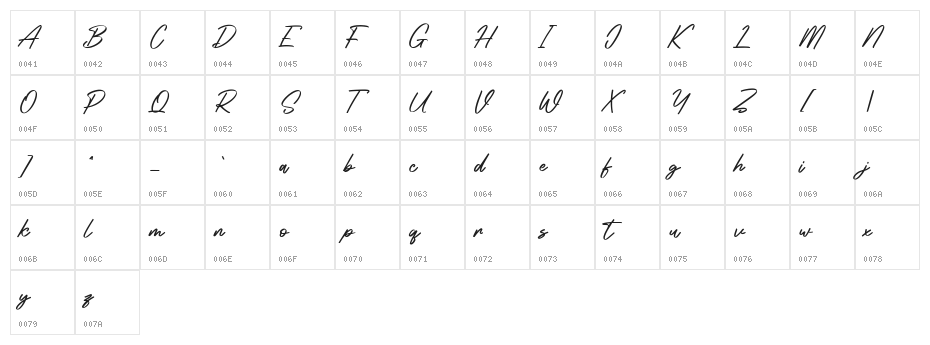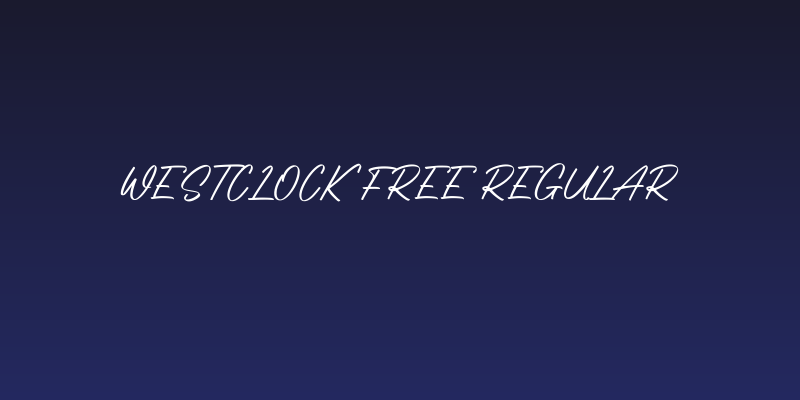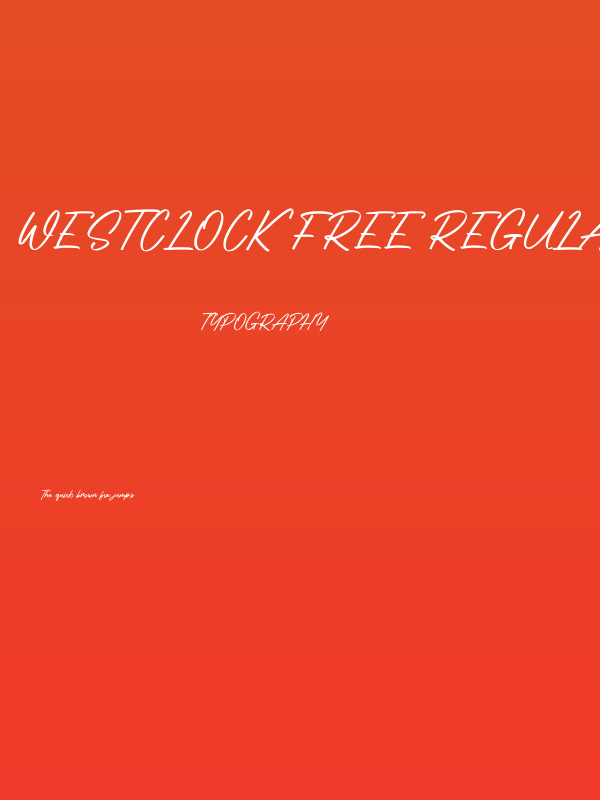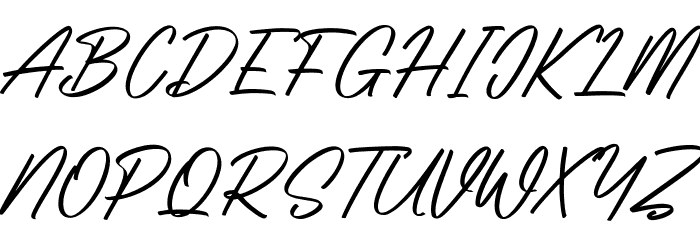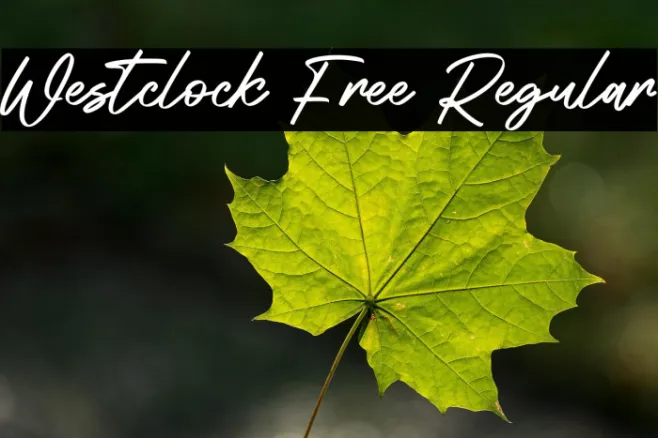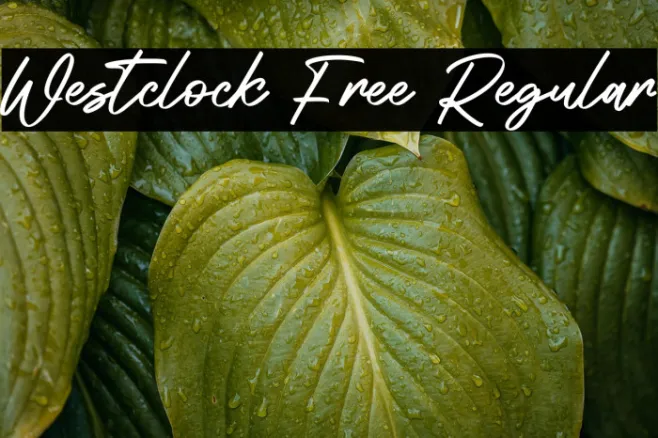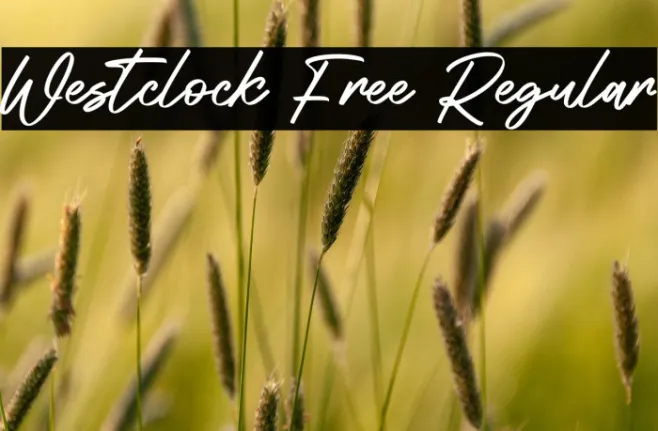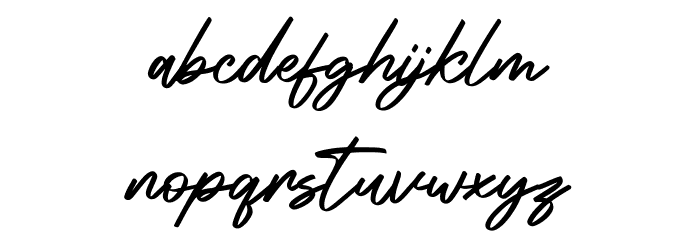
Westclock Free Regular Font
Westclock Free Regular Description
This font features a flowing, cursive style that exudes elegance and sophistication. The characters are connected in a smooth, continuous manner, reminiscent of traditional handwriting. The uppercase letters are slightly larger and more pronounced, while the lowercase letters maintain a consistent, graceful flow. The strokes are moderately thick, providing a balanced contrast that enhances readability without sacrificing the decorative appeal. This script font is ideal for projects that require a personal touch, such as invitations, greeting cards, and branding materials. Its classic yet modern aesthetic makes it versatile for various design contexts.